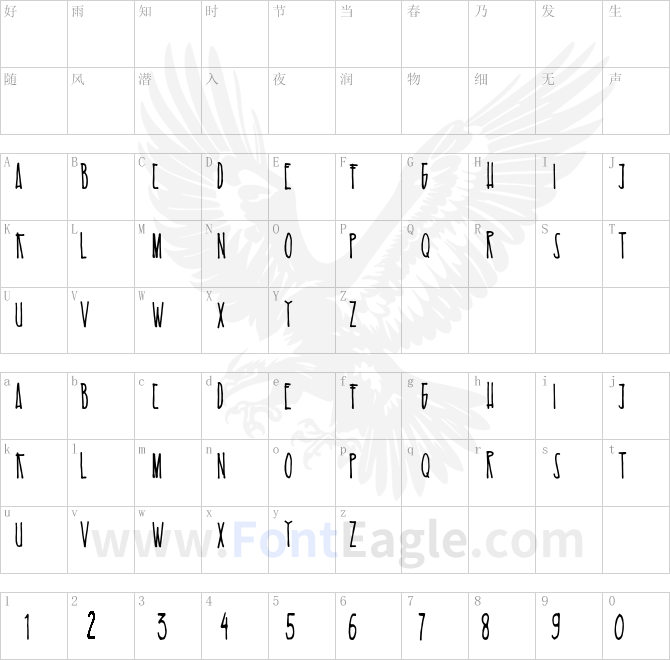
- Font name:Es Kelapa Muda
EsKelapaMuda is a great font, widely used in graphic design, single-page menu design, poster design and other fields, and is deeply loved by designers.EsKelapaMuda download.